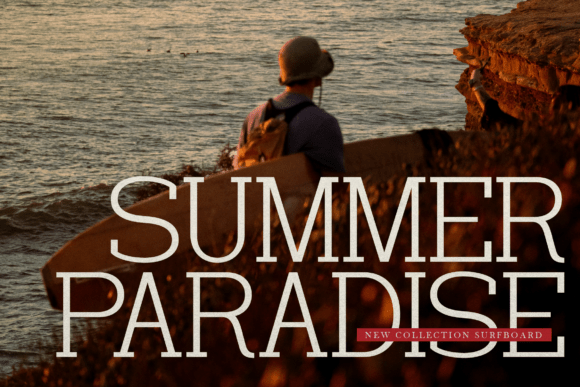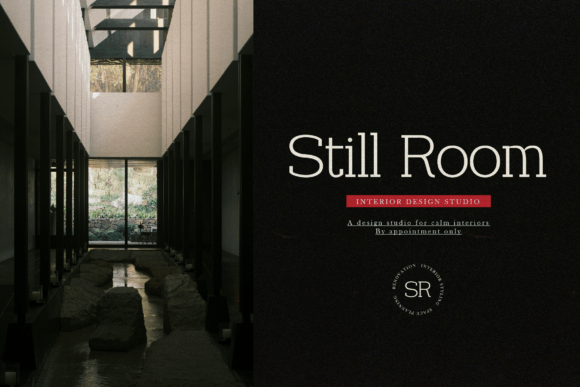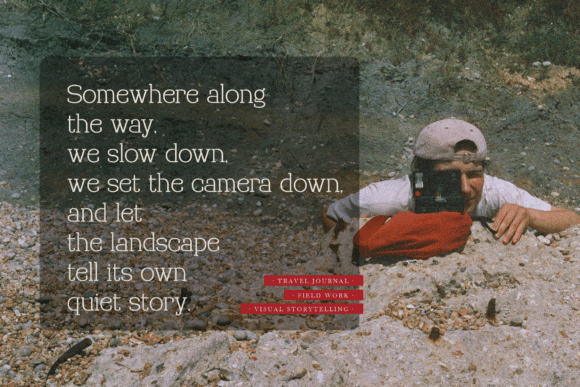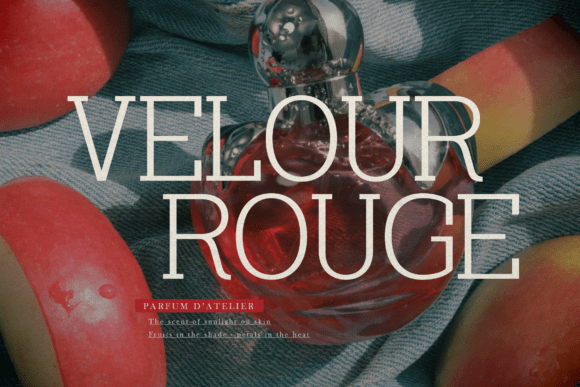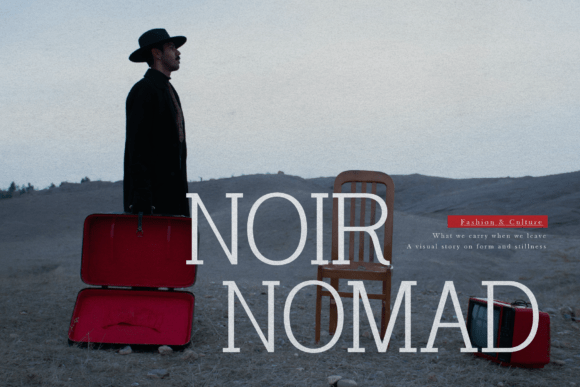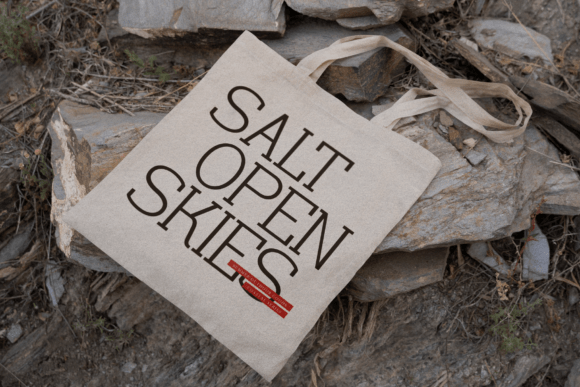
Introduction to Redorus Font
Step into a world of quiet confidence and academic charm with the Redorus font, a sophisticated slab serif that balances traditional structure with modern readability.
This Redorus typeface feels right at home in high-end editorial layouts, professional branding, and minimalist web design With its crisp edges and balanced proportions, the Redorus font offers an air of authority without feeling overly aggressive.